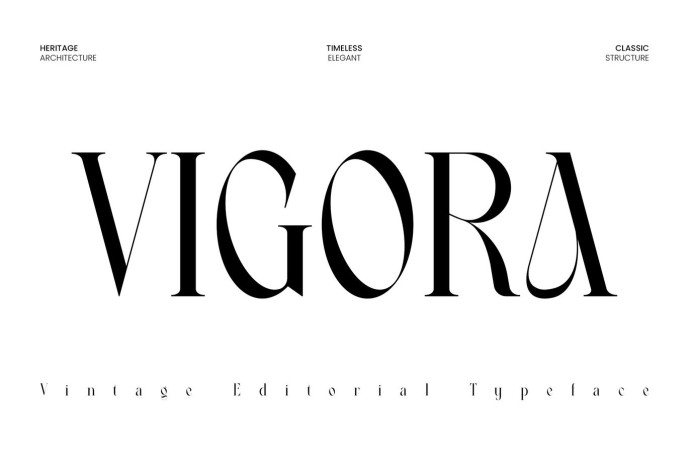
Vigora – Modern Classic Font
Vigora is an elegant editorial display typeface designed for sophisticated branding, publishing, and creative visual identities. Featuring high-contrast strokes, graceful curves, sharp serif details, and balanced proportions, it creates a refined aesthetic inspired by classical architecture and modern editorial design. Every letter is crafted to deliver a timeless appearance while maintaining exceptional readability for large headlines.
Whether you’re creating magazine covers, book titles, branding systems, invitations, packaging, posters, websites, or social media campaigns, Vigora gives every composition a polished and distinguished visual presence.
Create elegant visual stories with Vigora. Perfect for branding, editorial layouts, posters, publishing, packaging, website headers, and social media, this refined display typeface transforms simple headlines into memorable design statements with timeless character.